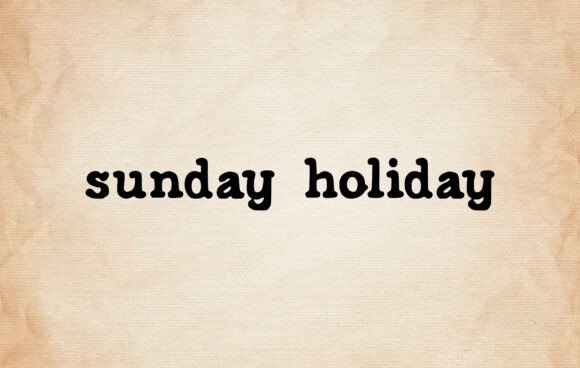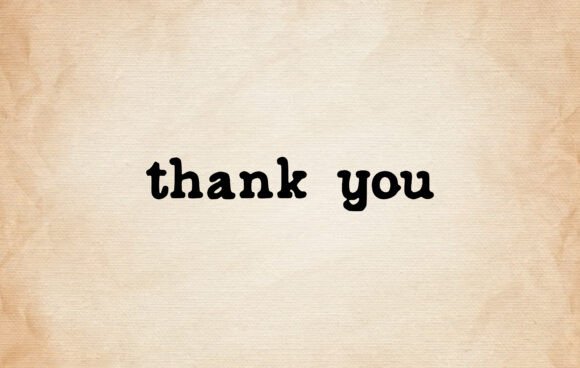
The Ultimate Guide to Carry Font: Elevate Your Designs with Elegance
I’ll never forget the time I was working on a wedding invitation project, and my client asked for a font that was both elegant and legible. I scoured the internet, tried countless fonts, but nothing seemed quite right. That was until I stumbled upon Carry Font. It was love at first sight! ✨ In this article, I’ll share my experience with Carry Font, its features, and how to make the most of it in your designs.
An Honest Review of Carry Font
• ✅ Legibility: Carry Font is incredibly easy to read, making it perfect for body text or titles.
• ✅ Versatility: It works beautifully for various design projects, from magazine headlines to social media graphics.
• ✅ Elegant feel: The font has a sophisticated, high-end look that’s perfect for wedding invitations, branding, and more.
• ✅ OpenType features: Carry Font comes with a range of OpenType features, including stylistic alternates and glyphs.
While Carry Font is an excellent choice, there are a few things to keep in mind: 🤔
• ⚠️ Limited free versions: Some free versions of Carry Font might have limited features or glyphs.
• ⚠️ Not ideal for body text: While it’s legible, Carry Font might not be the best choice for long blocks of body text.
The Backstory of Carry Font
Carry Font was designed with the goal of creating a versatile, elegant font that could be used for a wide range of design projects. The designer aimed to craft a font that was both legible and beautiful, with a unique personality. 💡
Q: What is Carry Font?
A: Carry Font is a modern font designed for creative projects, known for its elegance and legibility.